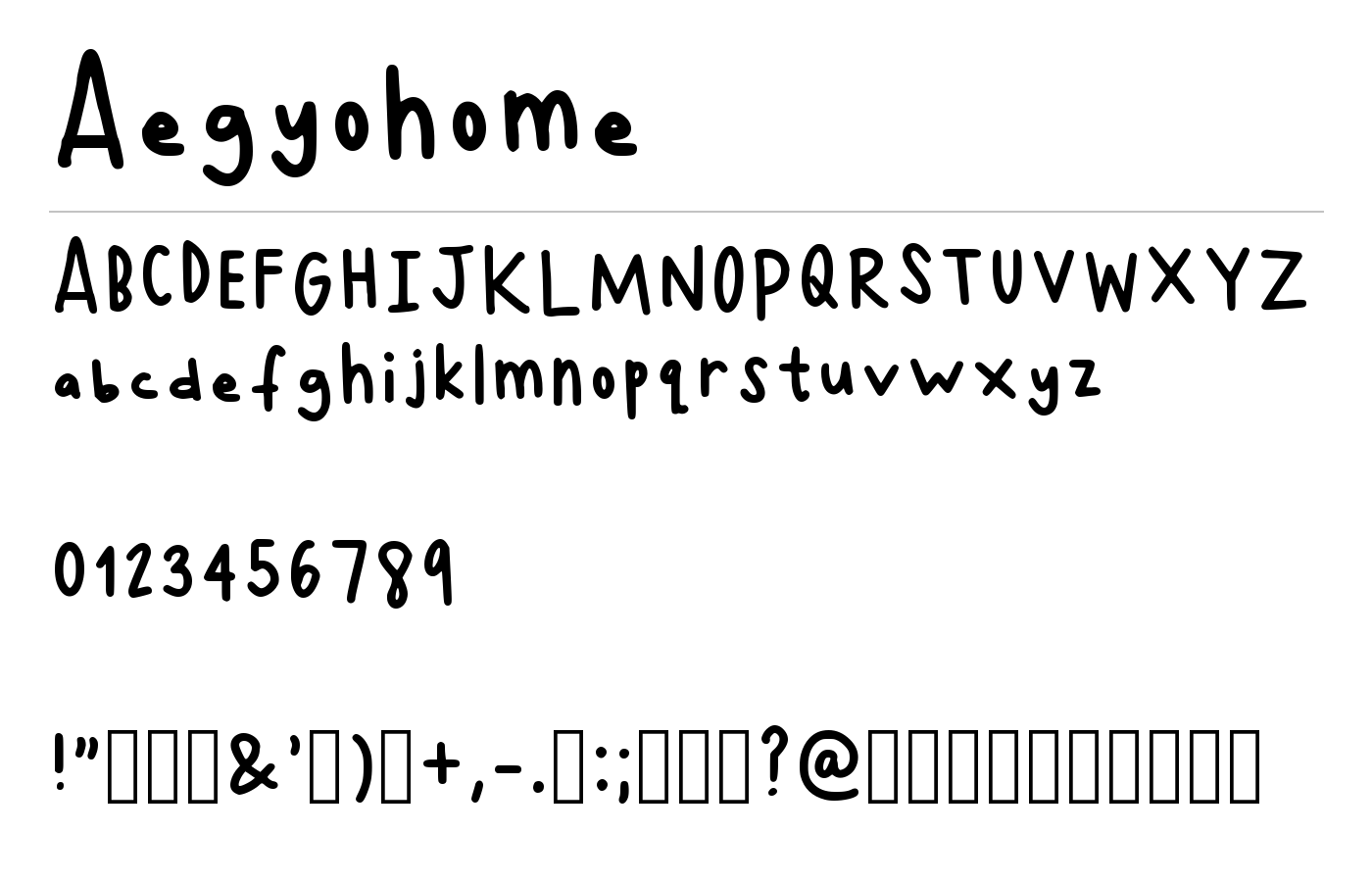
Aegyohome is a playful, casual handwritten sans serif font with a friendly and approachable style. Its irregular, rounded letterforms and varying stroke widths create a light, informal feel perfect for children’s books, creative projects, and informal branding. This font works best in headlines and designs that benefit from a warm, personal touch.
Aegyohome Font